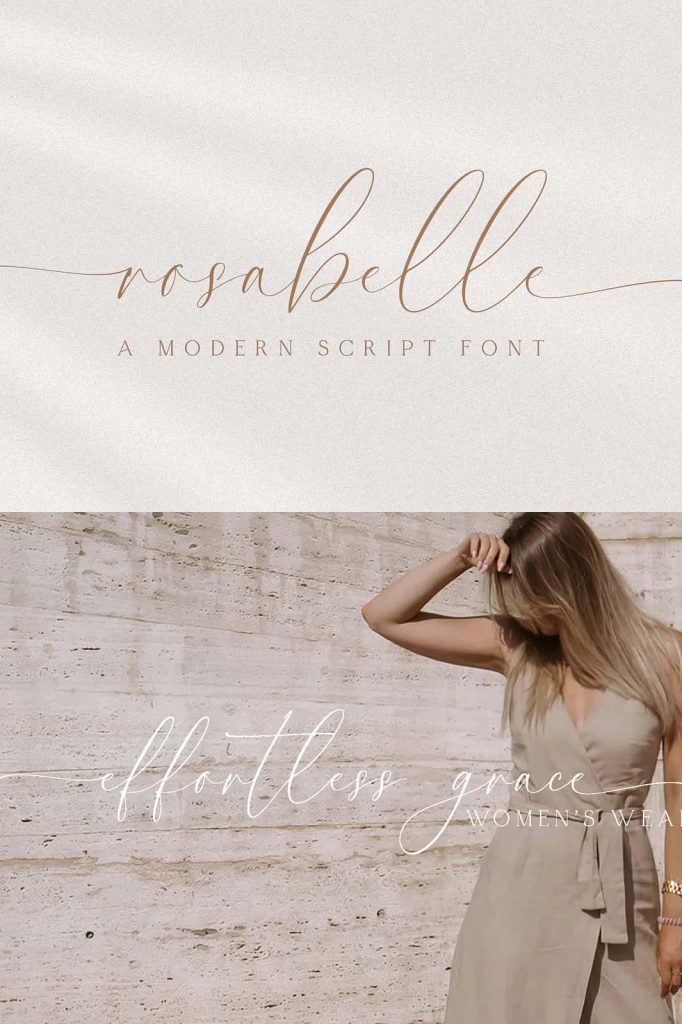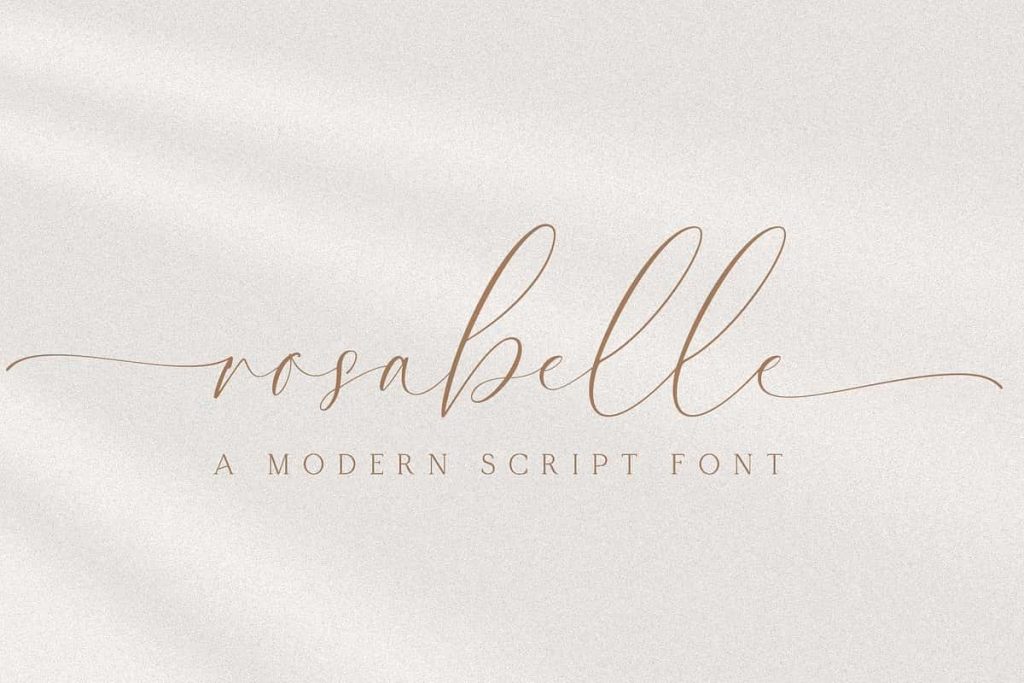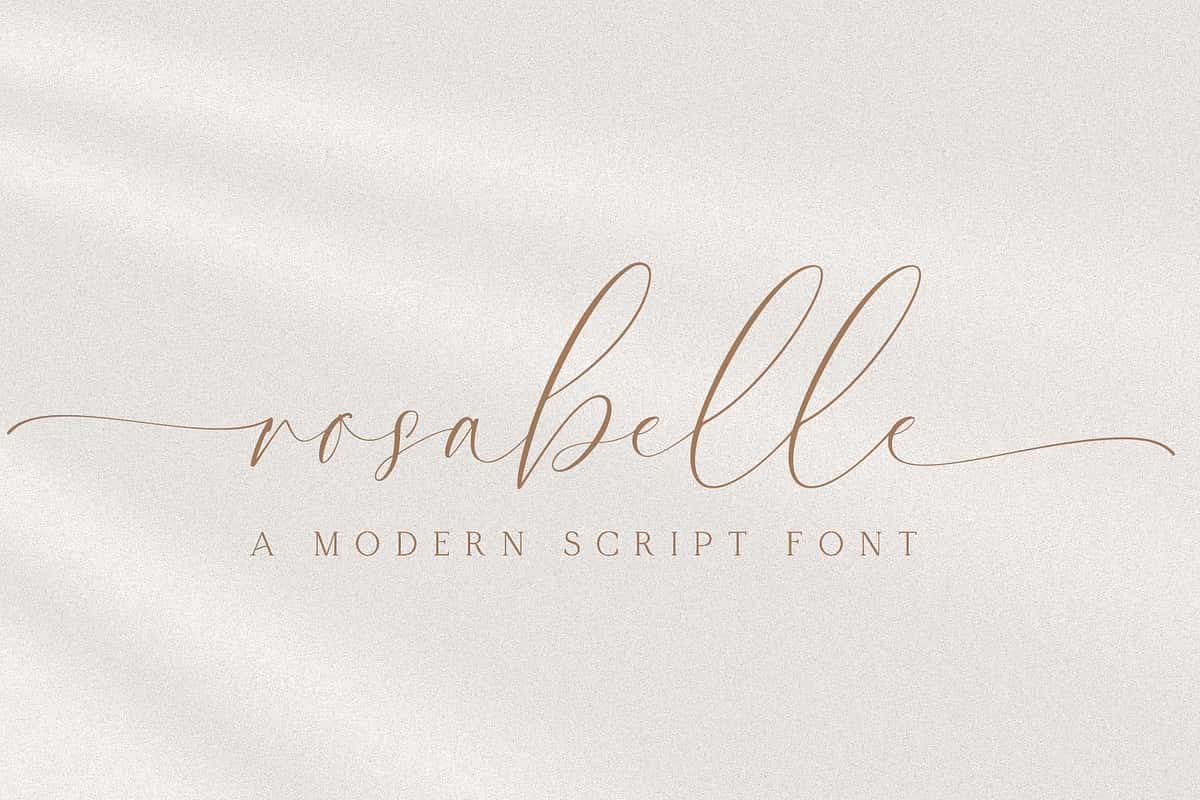
Rosabelle Script: A Modern Script Font with Graceful Elegance
Rosabelle Script is a beautifully modern script font created for designers and brands who appreciate refinement, style, and effortless sophistication. Its clean structure, smooth flow, and carefully crafted curves give it a graceful presence while maintaining excellent readability. The soft lines and elegant strokes create a timeless aesthetic suitable for both contemporary and classic design styles. With its polished yet inviting charm, Rosabelle Script brings personality and beauty to every creative project.
This font combines the delicate appeal of handwritten calligraphy with a clean and modern design approach. Each letter is thoughtfully shaped to create a consistent rhythm, allowing words and phrases to flow naturally. Whether used in a bold headline, a signature-style logo, or a romantic text layout, Rosabelle Script enhances visual messaging and adds a gentle yet expressive tone.
Ideal for Branding, Logo Design, and Professional Identity
Rosabelle Script is especially well-suited for branding projects that require elegance and originality. Its refined letters and balanced spacing make it a powerful choice for business logos, luxury brand identities, fashion labels, boutique product marks, beauty brands, and lifestyle companies. The font naturally communicates creativity, authenticity, and attention to detail.
When used in logo design, Rosabelle Script provides a personalized and premium feel, as if the brand name were handwritten with grace and expertise. This makes it a perfect option for creating monograms, name marks, and signature-style branding designs. Paired with serif or sans serif fonts, it supports hierarchical contrast and builds visually rich identity systems.
Perfect for Invitations, Packaging, and Editorial Designs
Beyond branding, Rosabelle Script adds sophistication to invitations and stationery. Whether for weddings, anniversaries, personal messages, or special events, its romantic lettering style makes every invitation feel special and thoughtfully crafted. The font’s gentle curves create a warm and expressive tone, making messages feel personal and heartfelt.
Product packaging also benefits from its elegant style. Use it to design perfume labels, candle packaging, skincare lines, luxury merchandise tags, or handmade product labels. Rosabelle Script elevates packaging design with stylistic flair and timeless beauty.
Editorial projects such as magazines, story titles, covers, and promotional ads also pair beautifully with this font. It adds style and personality to headlines without overwhelming the layout, making it a valuable tool for content creators and publication designers.
A Versatile Script Font for Creative Expression
Rosabelle Script stands out for its versatility and usability across multiple platforms. It works beautifully in digital media, including social media posts, website banners, quotes, digital planners, and online branding. The smooth digital rendering ensures consistent visual quality across print and screen applications.
Whether your style is minimalist, romantic, modern, or artistic, Rosabelle Script adapts naturally. Designers who want a script font that looks elegant yet approachable will appreciate the balance it offers between personality and professionalism.
Transform Your Typography with Rosabelle Script
Rosabelle Script is more than a font; it is a creative tool designed to inspire thoughtful design and meaningful visual storytelling. Every stroke supports the flow of emotion and expression, allowing messages to feel alive and connected.
If you want to create work that stands out with grace, emotion, and style, Rosabelle Script is an essential addition to your type collection. Use it to elevate personal projects, enhance brand identity, and design visuals that feel polished, memorable, and beautifully crafted.